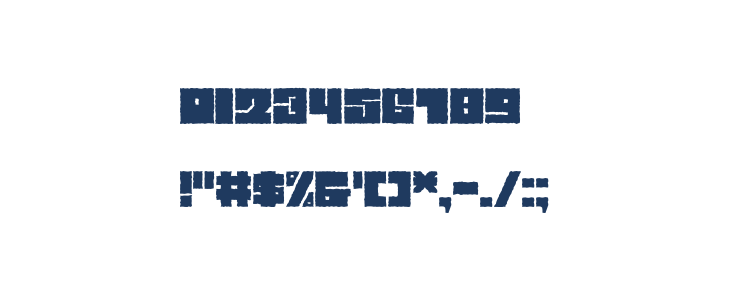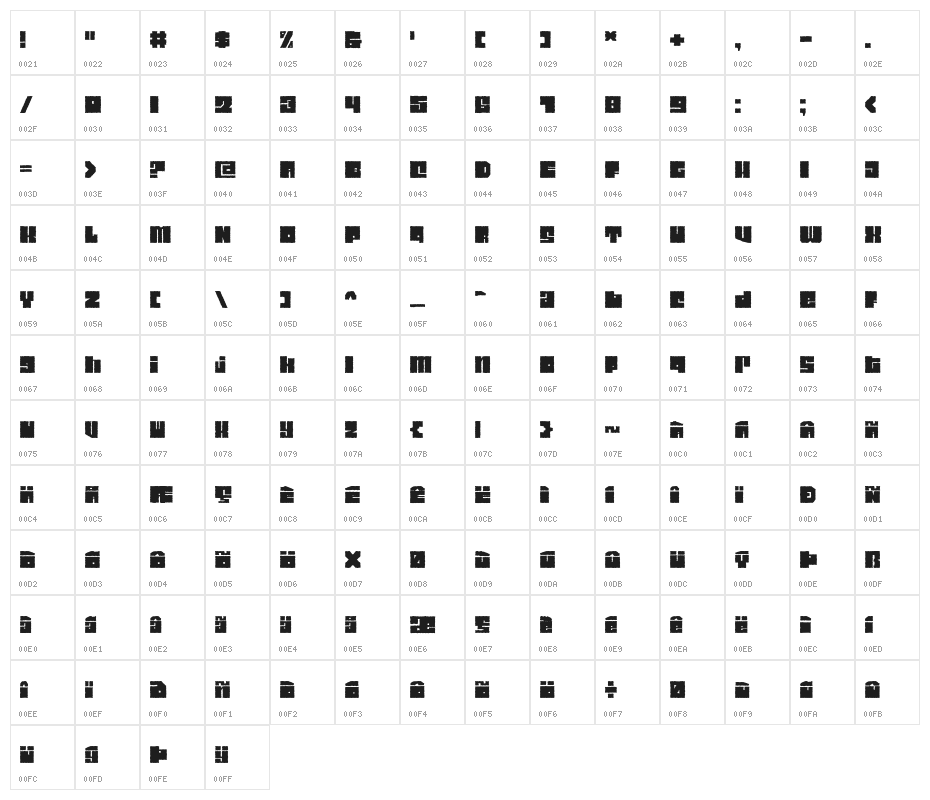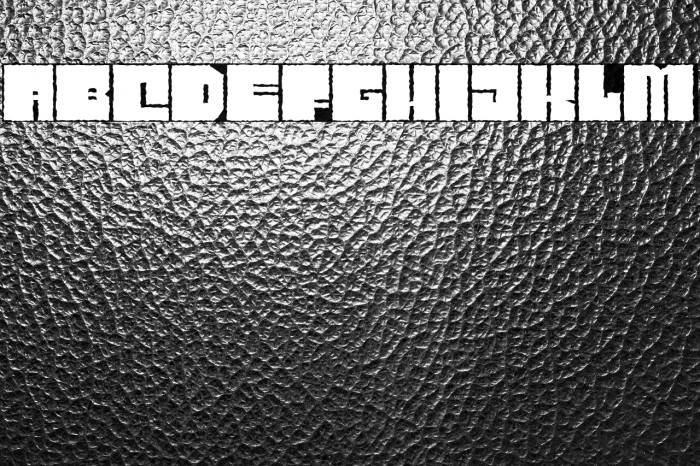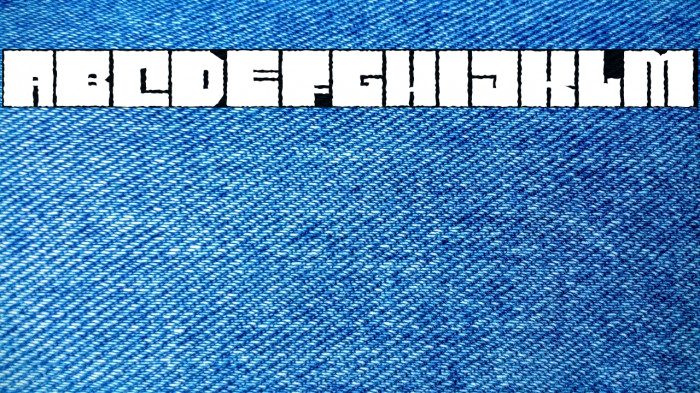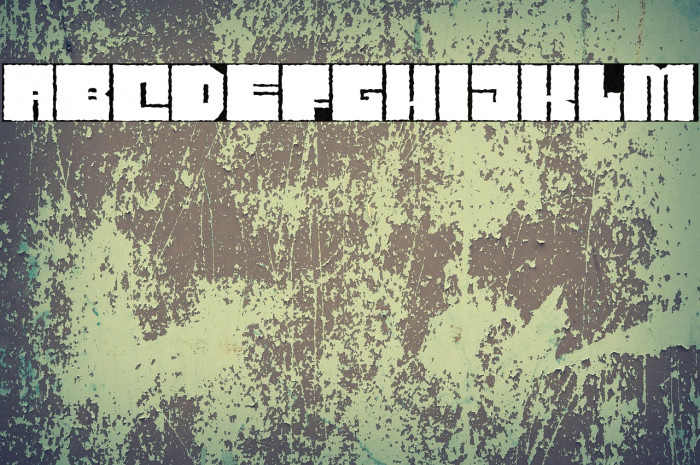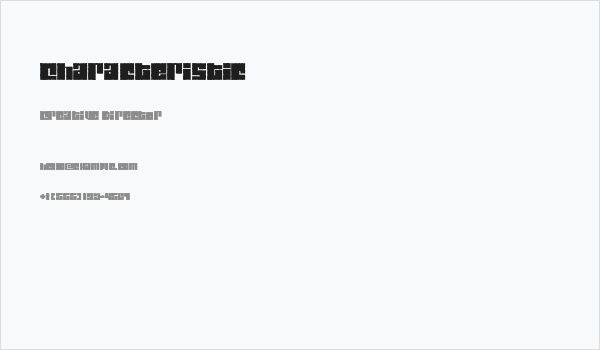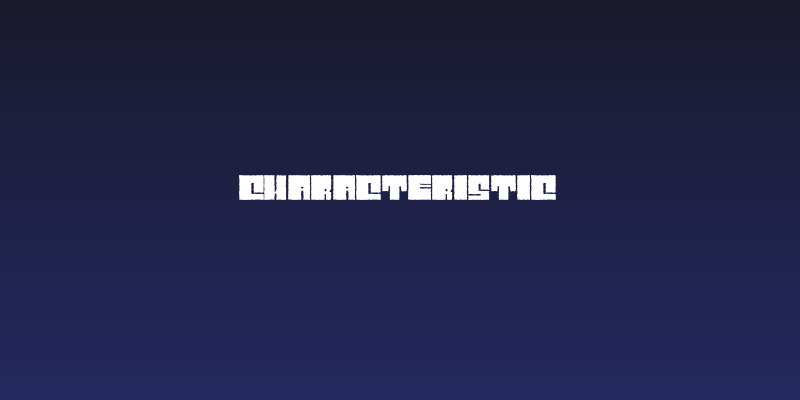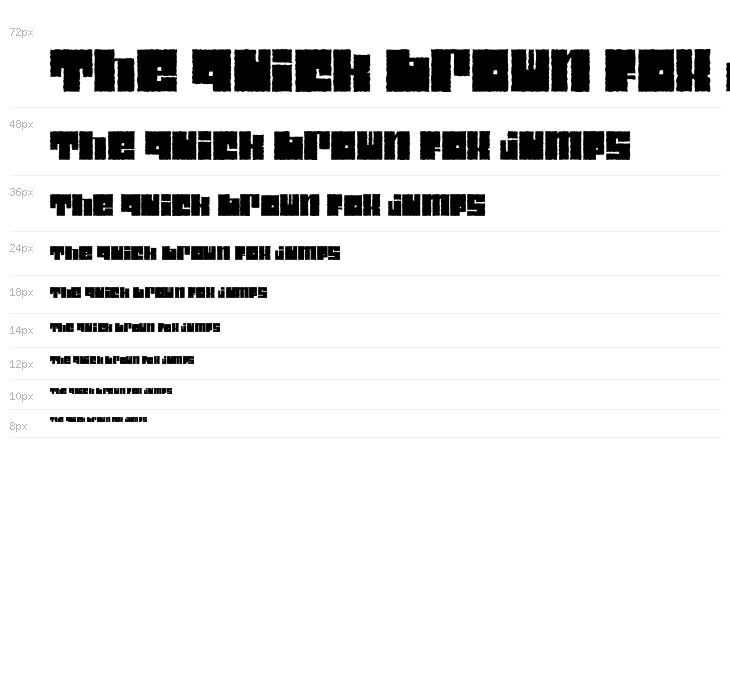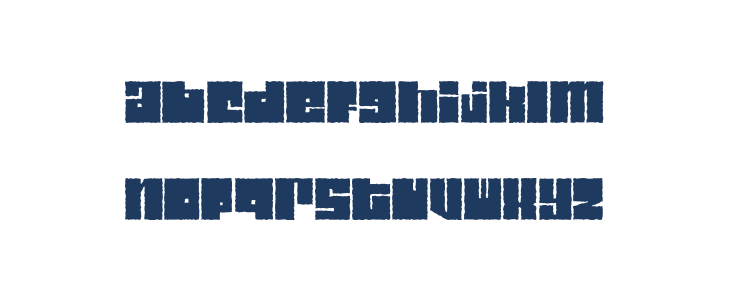
Characteristic Font
Characteristic Description
This font features a bold, blocky design with a distressed texture that gives it a rugged, industrial feel. The characters are uniformly wide, creating a strong visual impact. The uppercase and lowercase letters maintain a consistent height, contributing to a cohesive appearance. The numbers and special characters follow the same stylistic approach, ensuring uniformity across all elements. The rough edges and uneven lines add a handmade, gritty aesthetic, making it ideal for projects that require a bold statement.
| Proposed Projects | Perfect for posters, album covers, branding for edgy or industrial-themed products, and any design needing a strong, impactful typeface. |